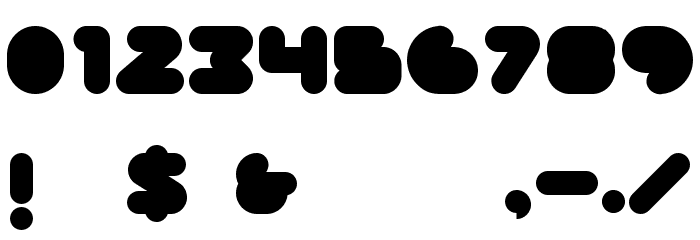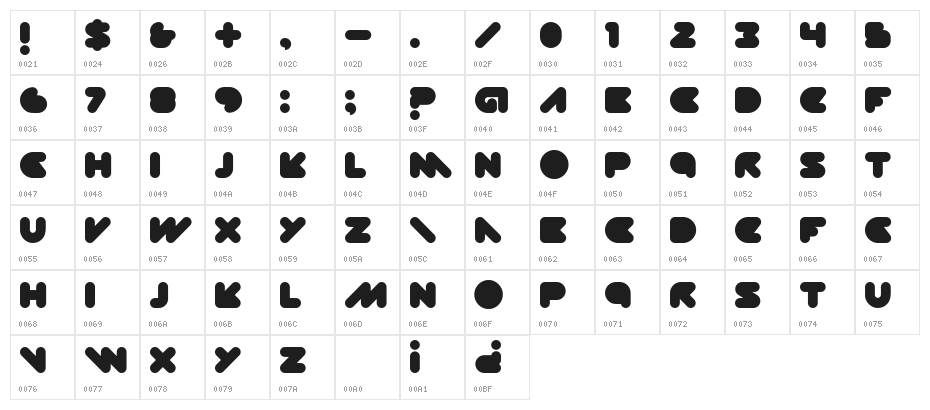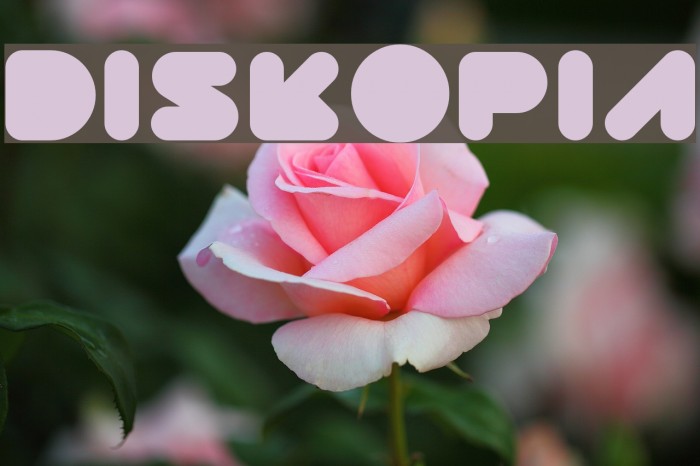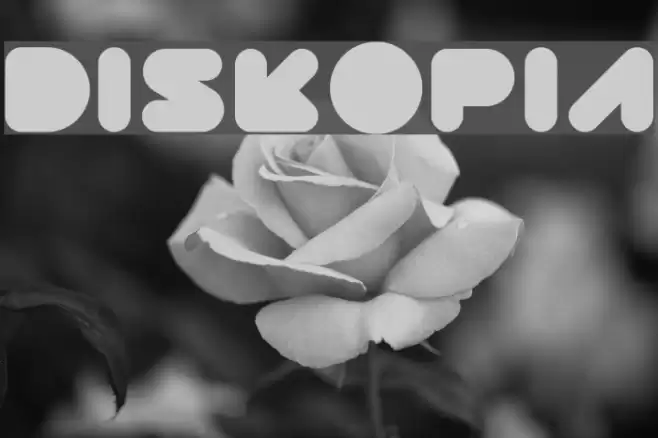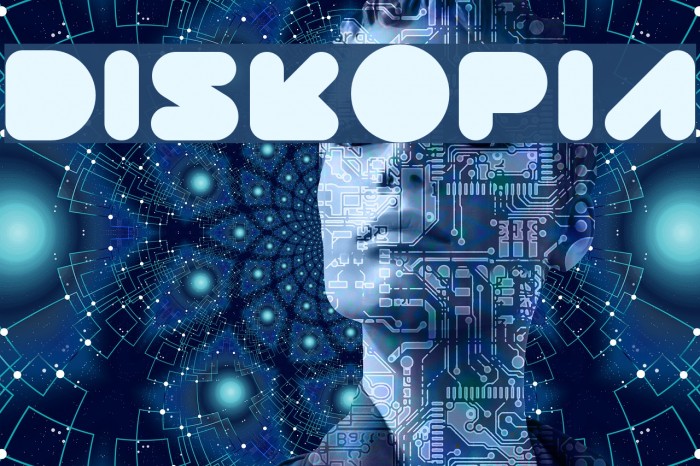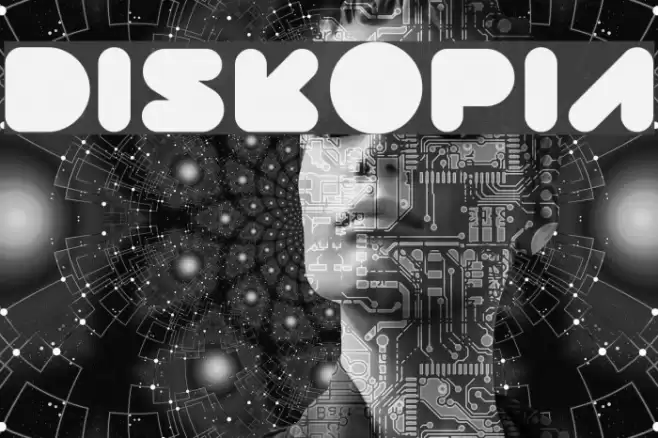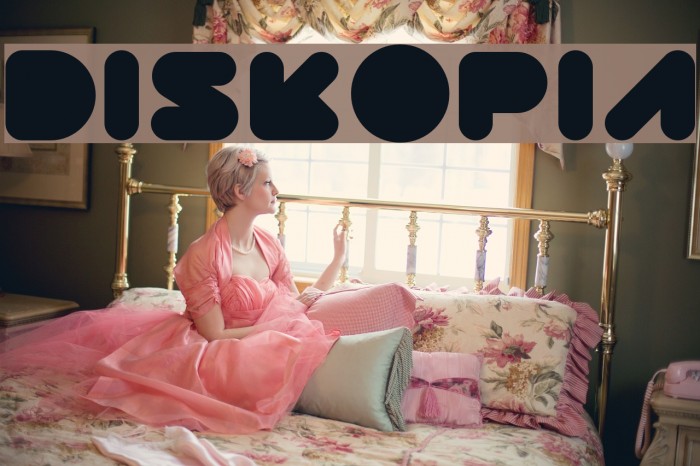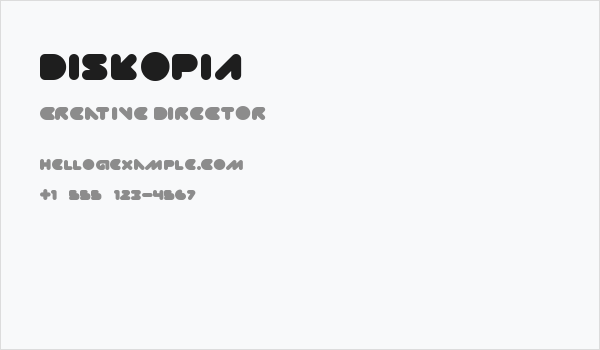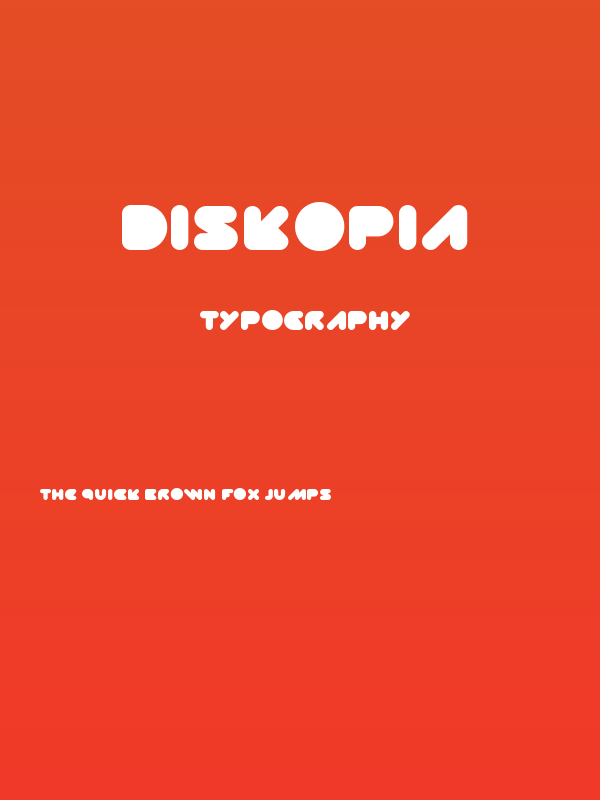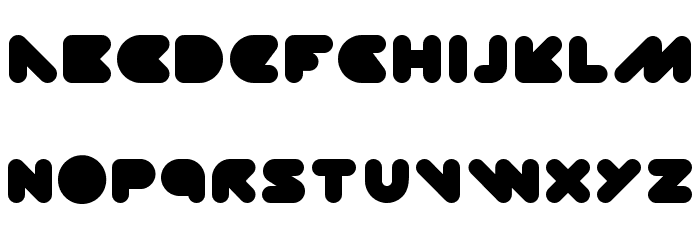
DISKOPIA Font
DISKOPIA Description
This font features a bold, geometric design with rounded edges, creating a playful and modern aesthetic. The characters are constructed with thick strokes and consistent weight, giving the typeface a strong presence. The rounded forms and uniformity in the letter shapes contribute to a cohesive and visually appealing look. The font's style is reminiscent of retro-futuristic design, making it suitable for projects that aim to capture a sense of nostalgia while maintaining a contemporary feel. Its unique character shapes, such as the distinctive 'Q' and 'R', add personality and charm, making it ideal for creative and artistic applications.
| Proposed Projects | Ideal for branding, posters, album covers, and any project requiring a bold, modern aesthetic. |